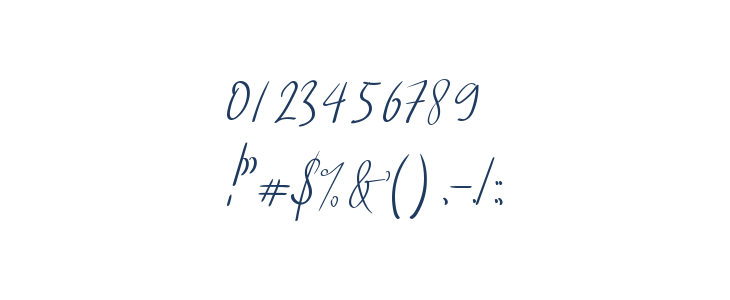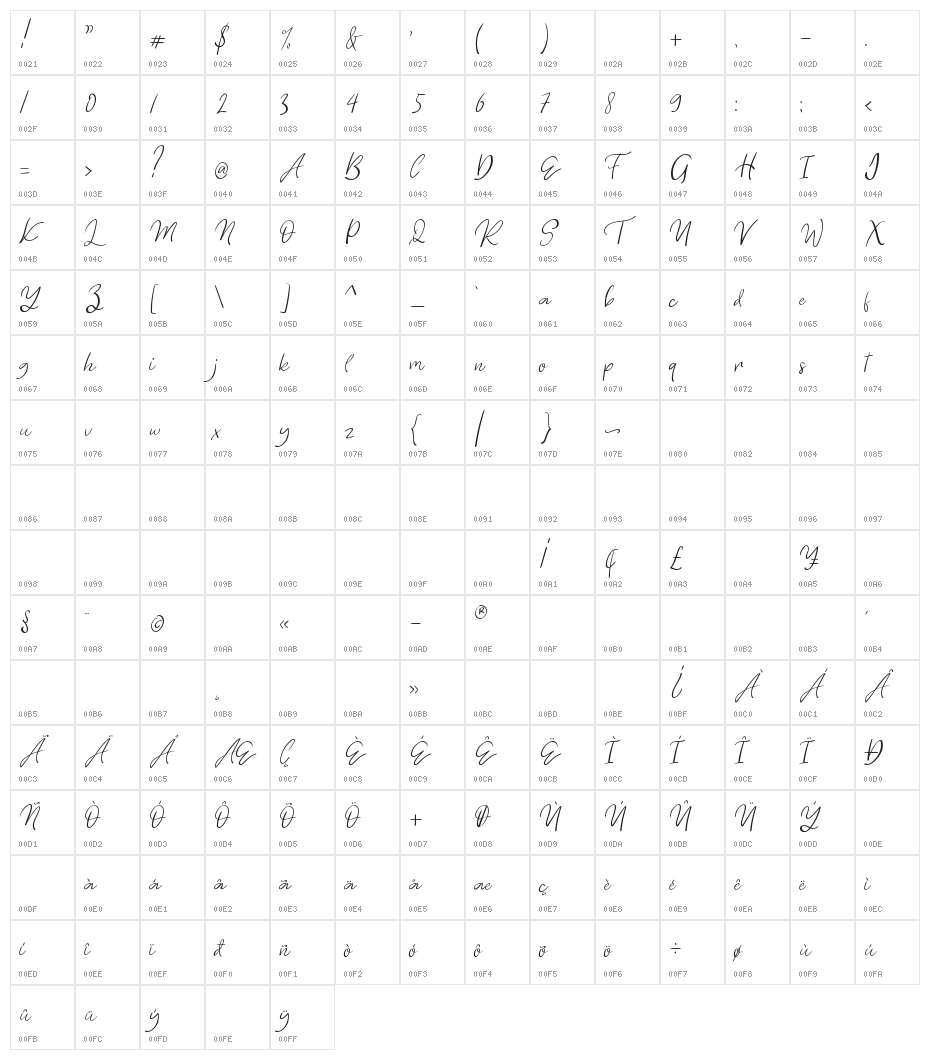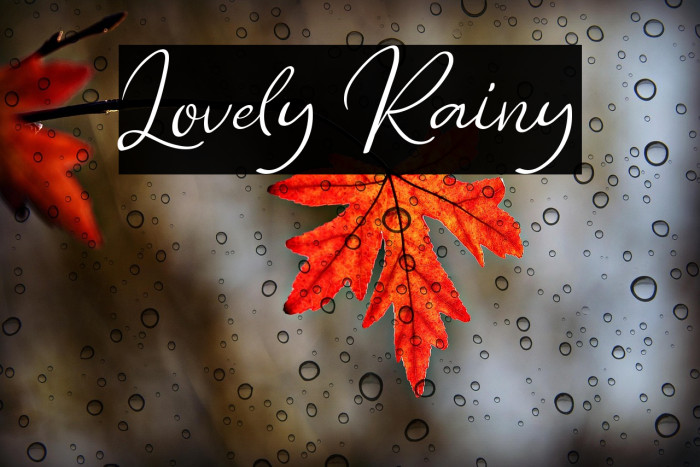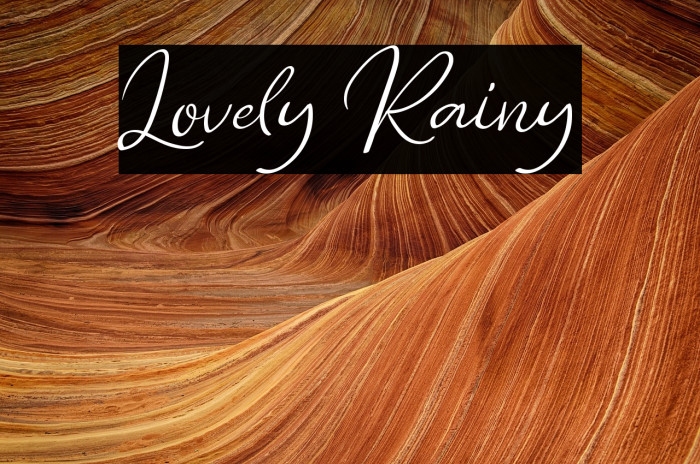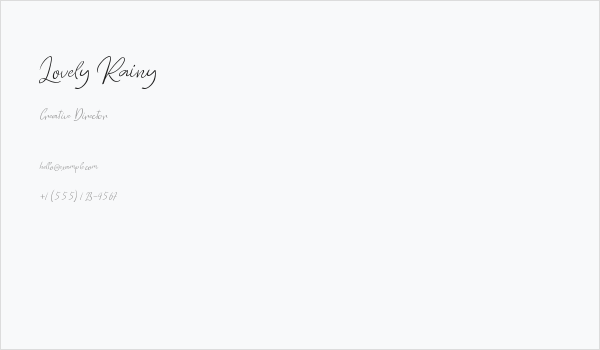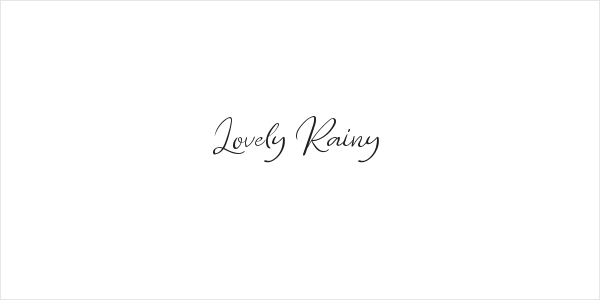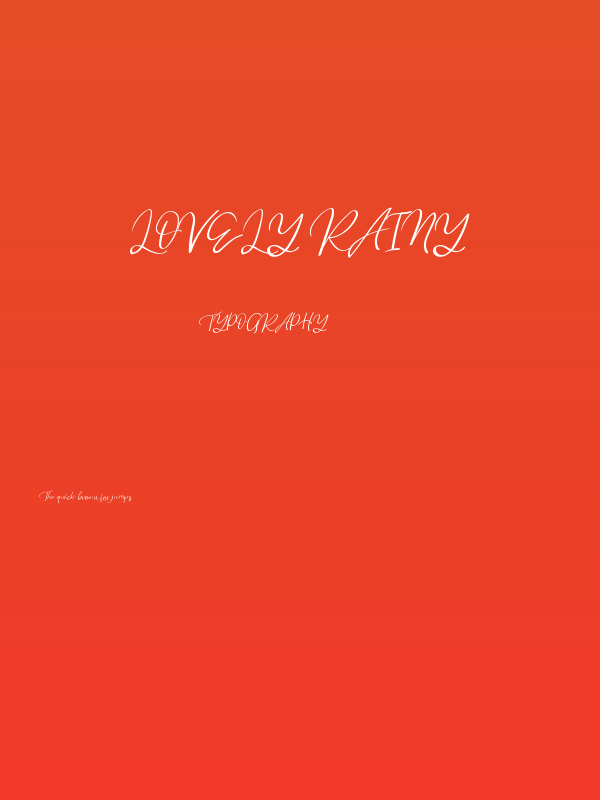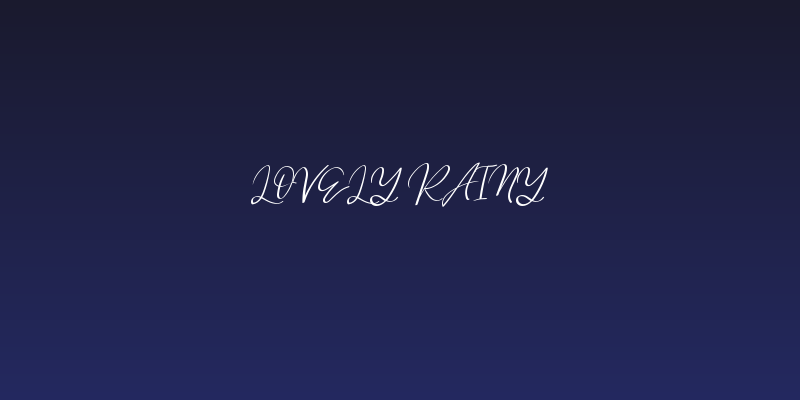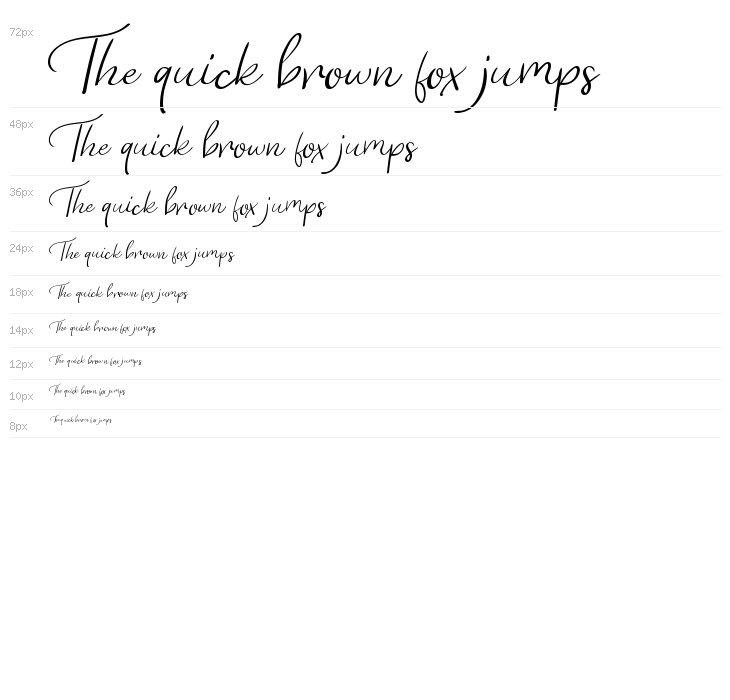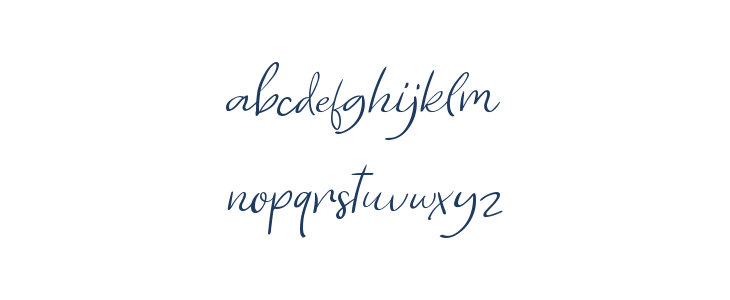
Lovely Rainy Font
Lovely Rainy Description
This font exudes elegance and fluidity, characterized by its script style that mimics natural handwriting. The letters are connected with smooth, flowing strokes, giving it a graceful and sophisticated appearance. The uppercase letters are slightly more elaborate, with some featuring loops and swashes that add a decorative touch. The lowercase letters maintain a consistent flow, enhancing readability while retaining an artistic flair. The numerals are designed to match the overall style, with a slight slant and curved lines. Special characters are integrated seamlessly, maintaining the font's cohesive look. This font is perfect for projects that require a personal, elegant touch, such as invitations, greeting cards, and branding materials.
| Overall Style | Elegant, Decorative |
| Use Case | Headlines, Invitations, Branding |
| Proposed Projects | Ideal for wedding invitations, greeting cards, personal branding, and elegant packaging designs. |